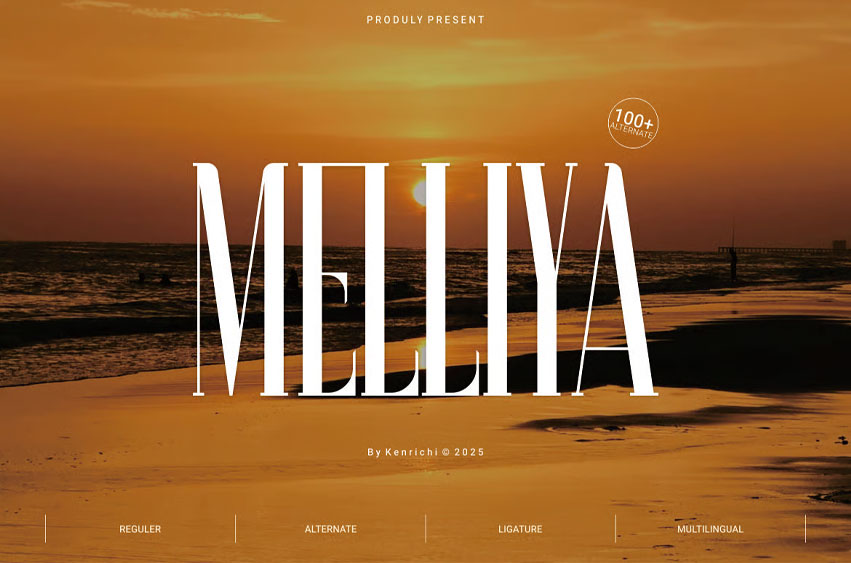
Melliya Font is a modern and authentic font. Perfect for both professional and branding needs of a product. This font is suitable for any branding project like quotes, logo, blog header, poster, branding, letter, invitation, stationery, etc.
Designed as a versatile and flexible font that can be used on a range of projects and media. outstanding in a wide range of contexts.